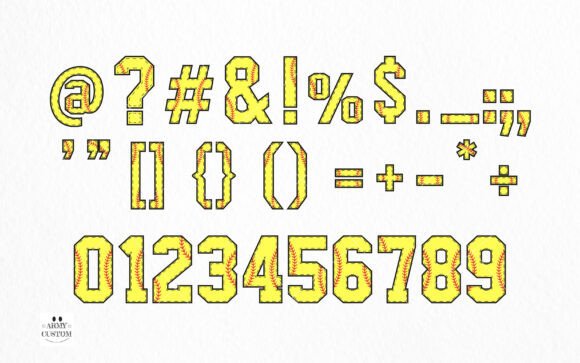
Softball Army Font
Experience the vibrant intersection of academics and athletics epitomized in Softball Sport Army, a top-tier premium font. A quaint yet dynamic typeface, it charmingly encapsulates the zest and spirit of both worlds, making it an excellent choice for conveying vibrancy and excitement. Reflective of the university-style aesthetic, it creatively merges playful hues with a commanding martial allure, embodying a spirit of competition and intellectual pursuit.